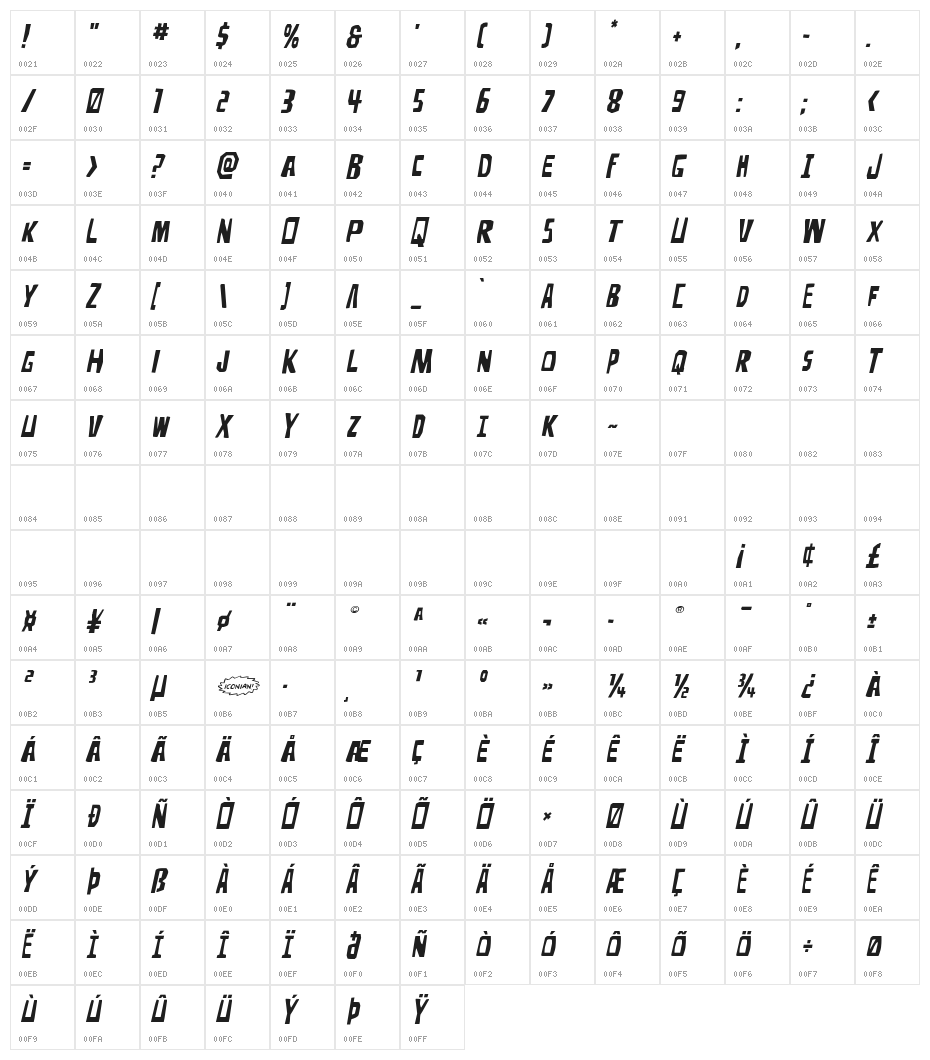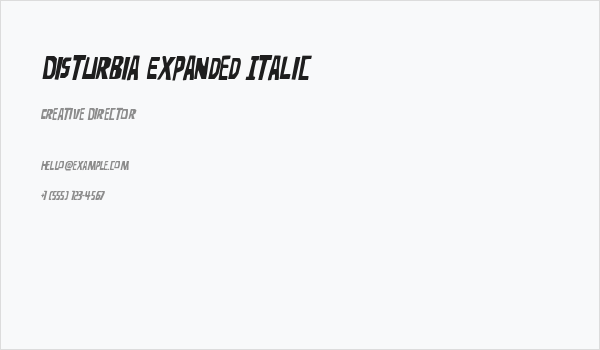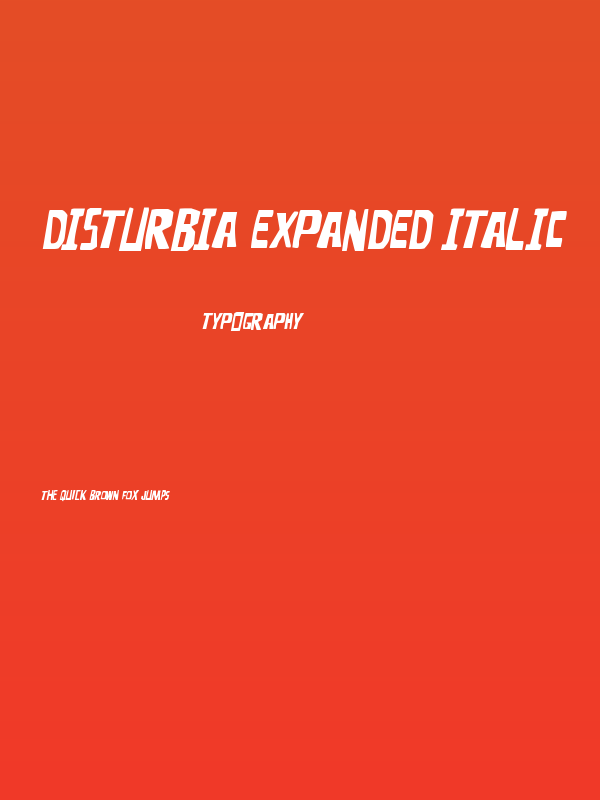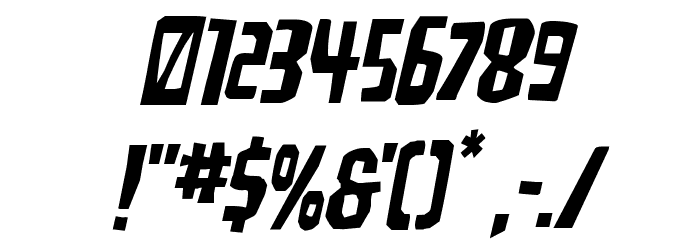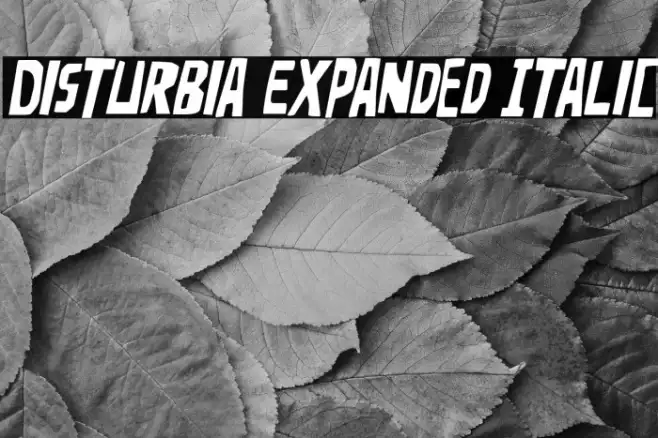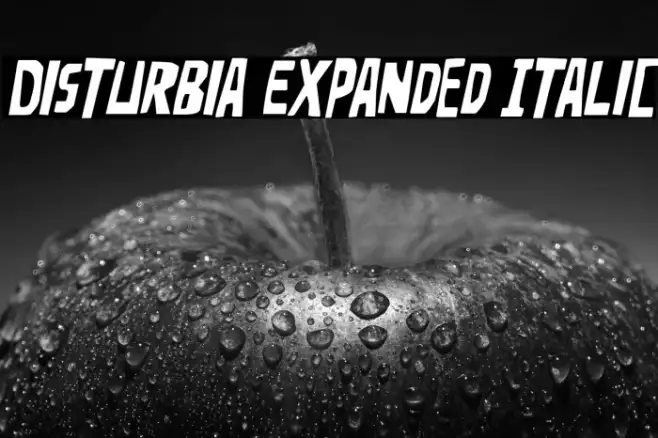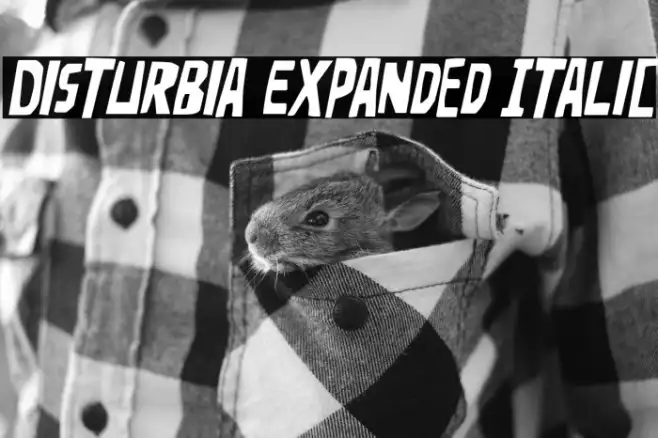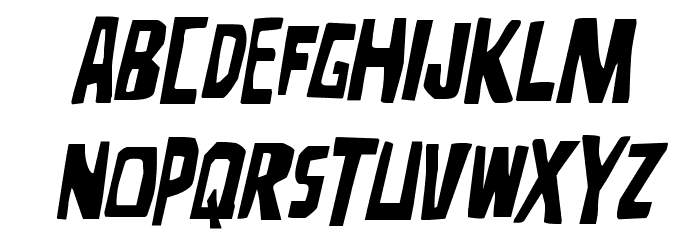
Disturbia Expanded Italic Font
Disturbia Expanded Italic Description
This font features a bold and dynamic style with an italicized slant, giving it a sense of movement and energy. The characters are expanded, providing a wide and impactful appearance. The uppercase and lowercase letters maintain a consistent design, with sharp angles and a slightly futuristic feel. The numbers and special characters follow the same aesthetic, ensuring uniformity across all elements. This font is ideal for projects that require a bold statement and a modern touch.
DISTURBIA-EXPANDED-ITALIC UPPERCASE
DISTURBIA-EXPANDED-ITALIC LOWERCASE
DISTURBIA-EXPANDED-ITALIC OTHER CHARS
| Proposed Projects | Perfect for branding, posters, headlines, and any design needing a strong, modern impact. |